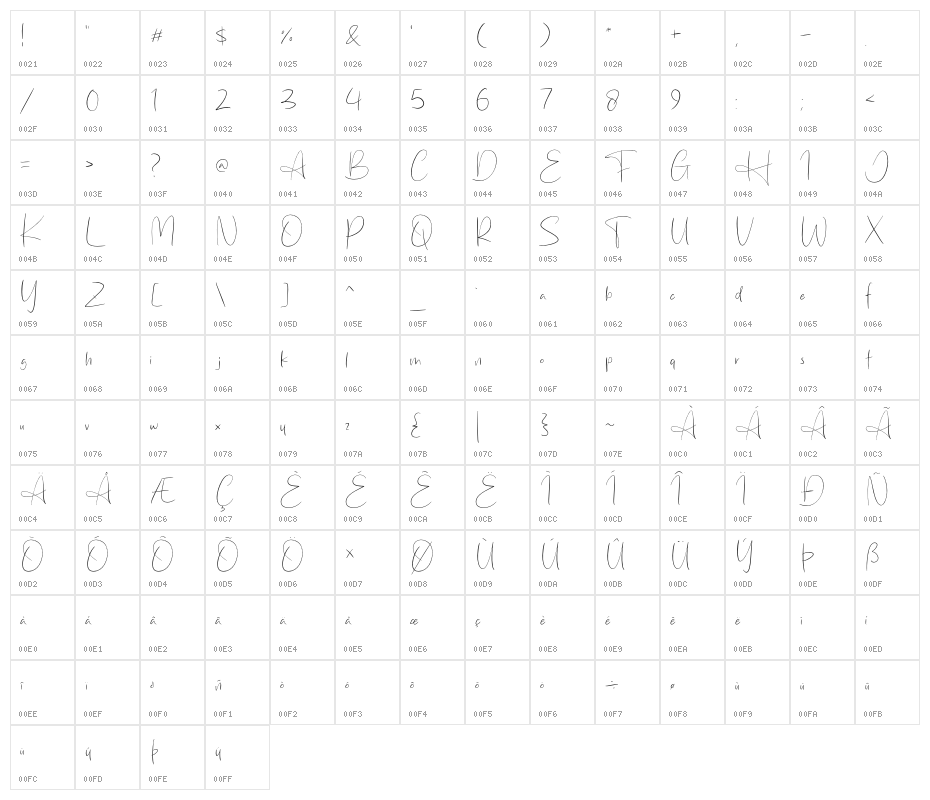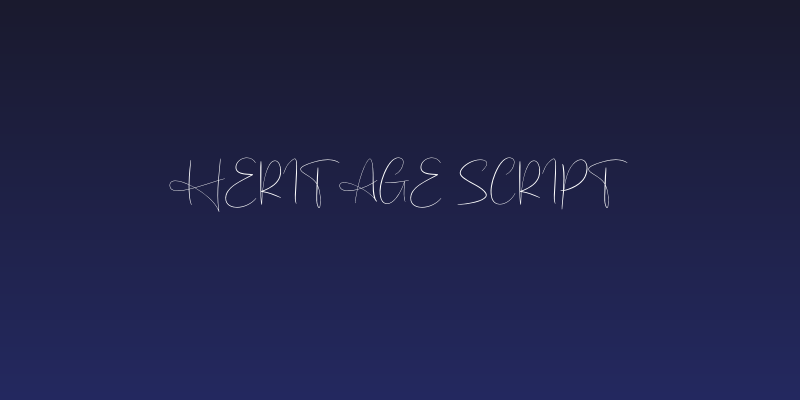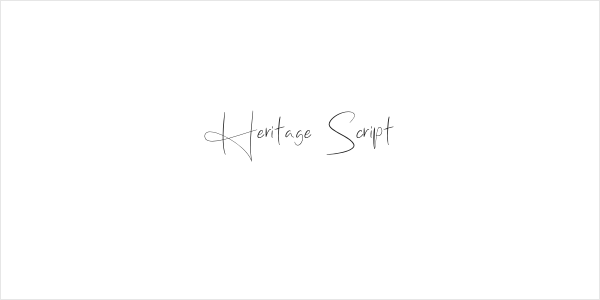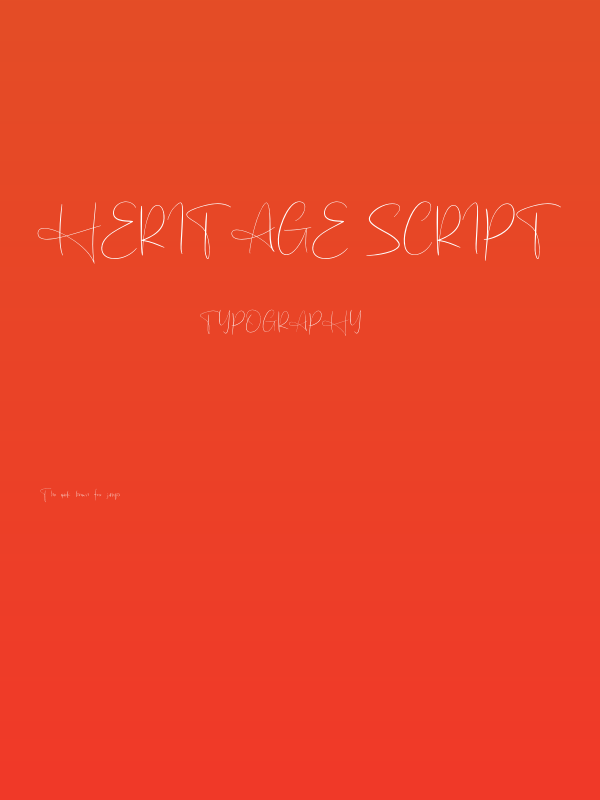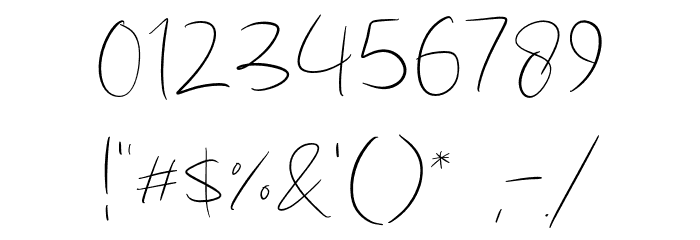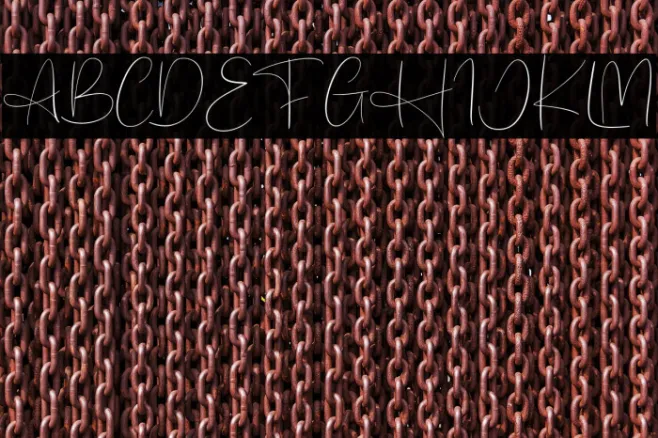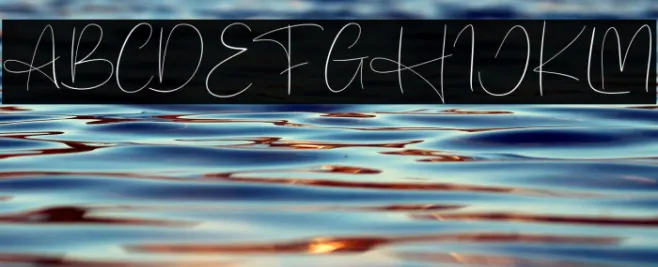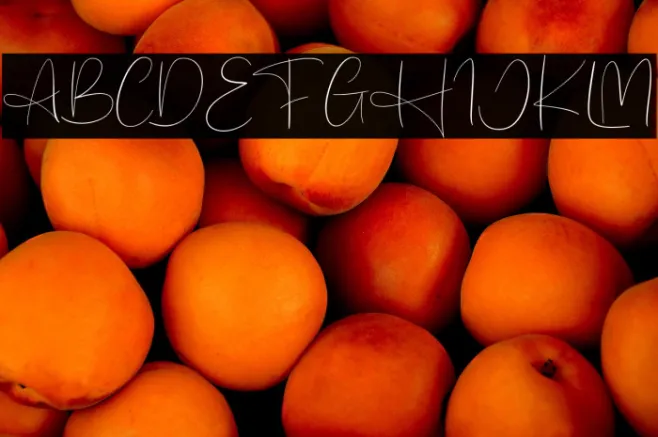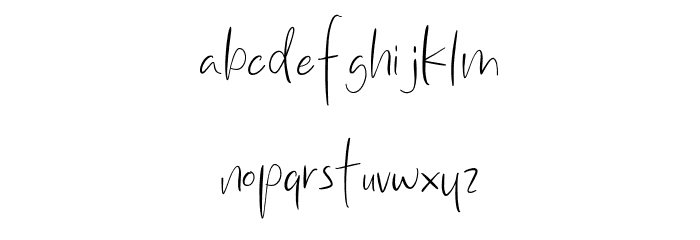
Heritage Script Font
Heritage Script Description
This font exhibits a delicate and flowing script style, characterized by its elegant and elongated letterforms. The strokes are thin and consistent, giving it a refined and sophisticated appearance. The uppercase letters have a graceful, sweeping quality, while the lowercase letters maintain a smooth, connected flow. The numerals are designed with a similar elegance, ensuring uniformity across the character set. Special characters are crafted with the same attention to detail, enhancing the font's overall aesthetic. This script font is ideal for projects that require a touch of elegance and sophistication.
| Overall Style | Elegant |
| Use Case | Logos, Invitations, Branding |
| Proposed Projects | Ideal for wedding invitations, elegant branding, personal stationery, and high-end product packaging. |